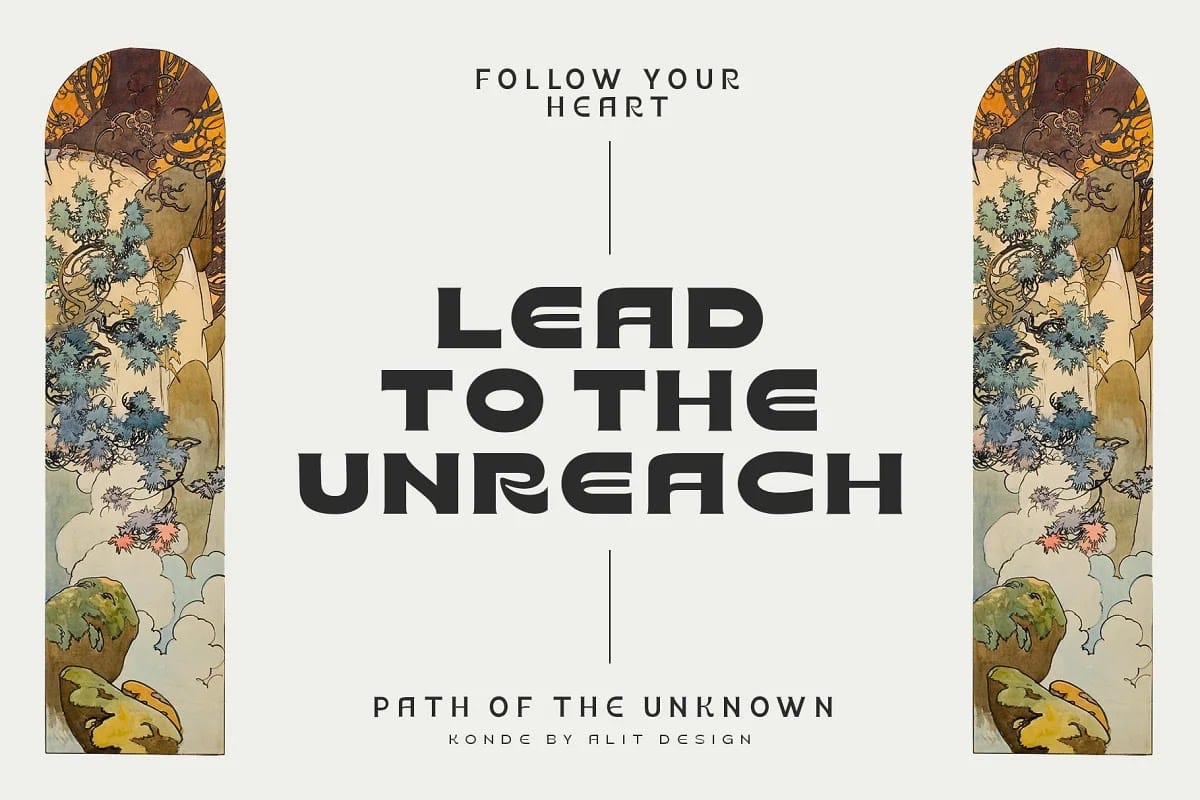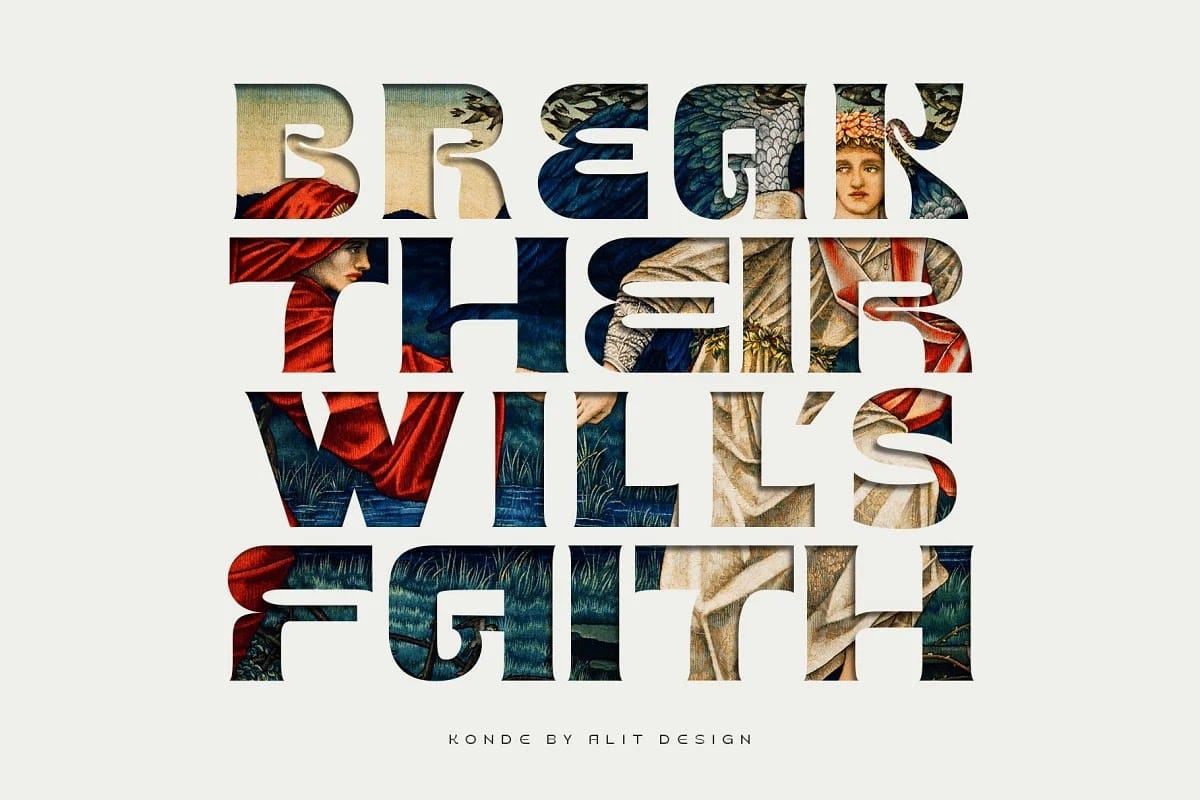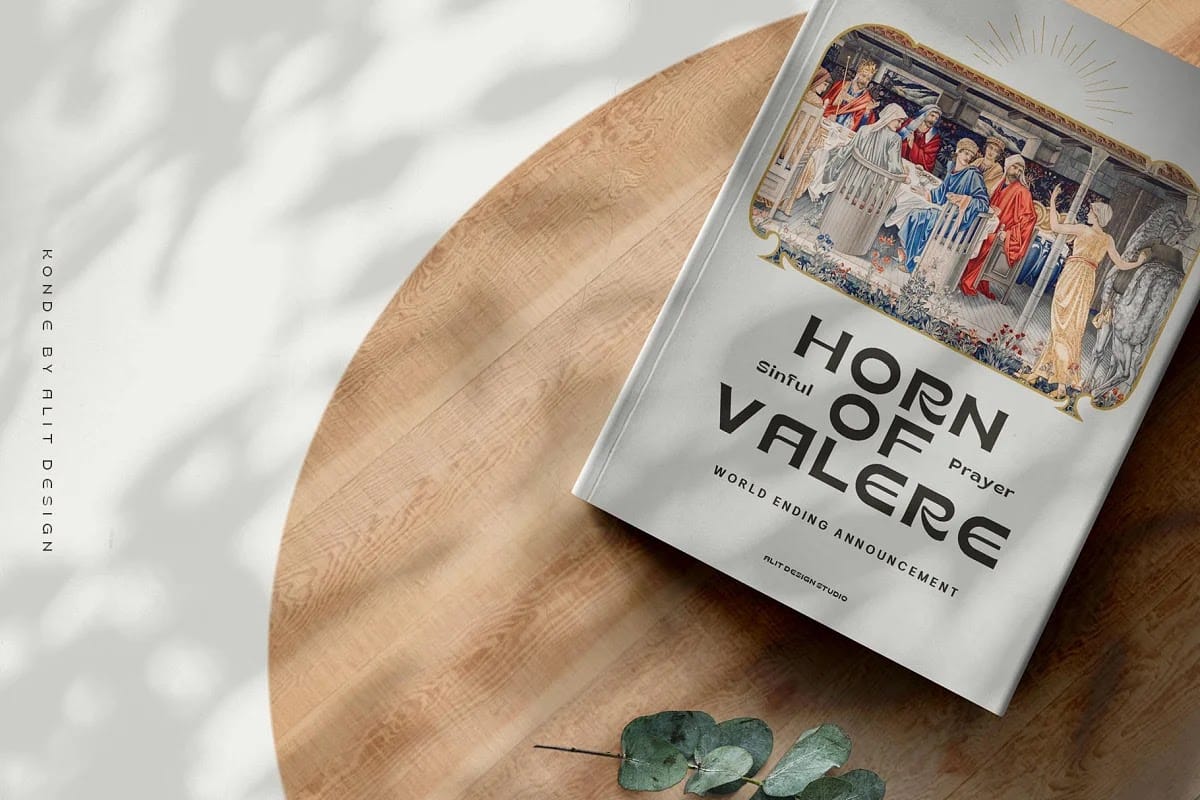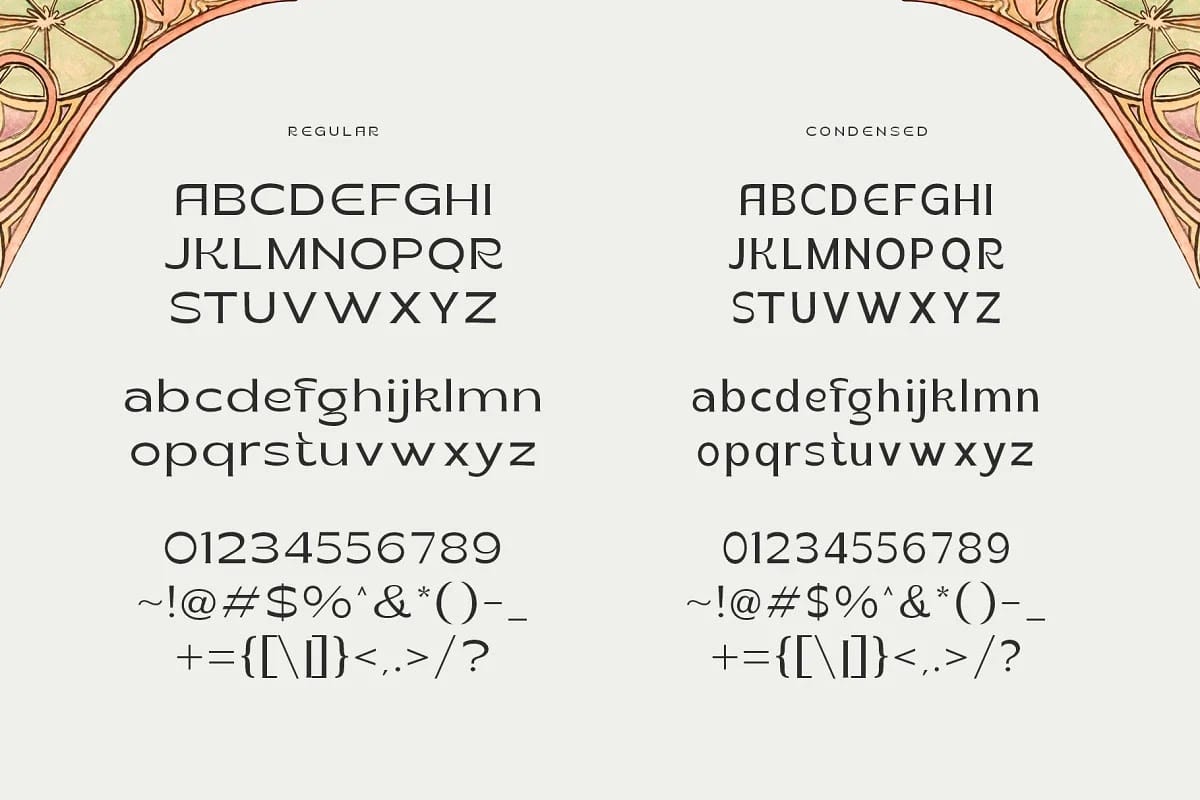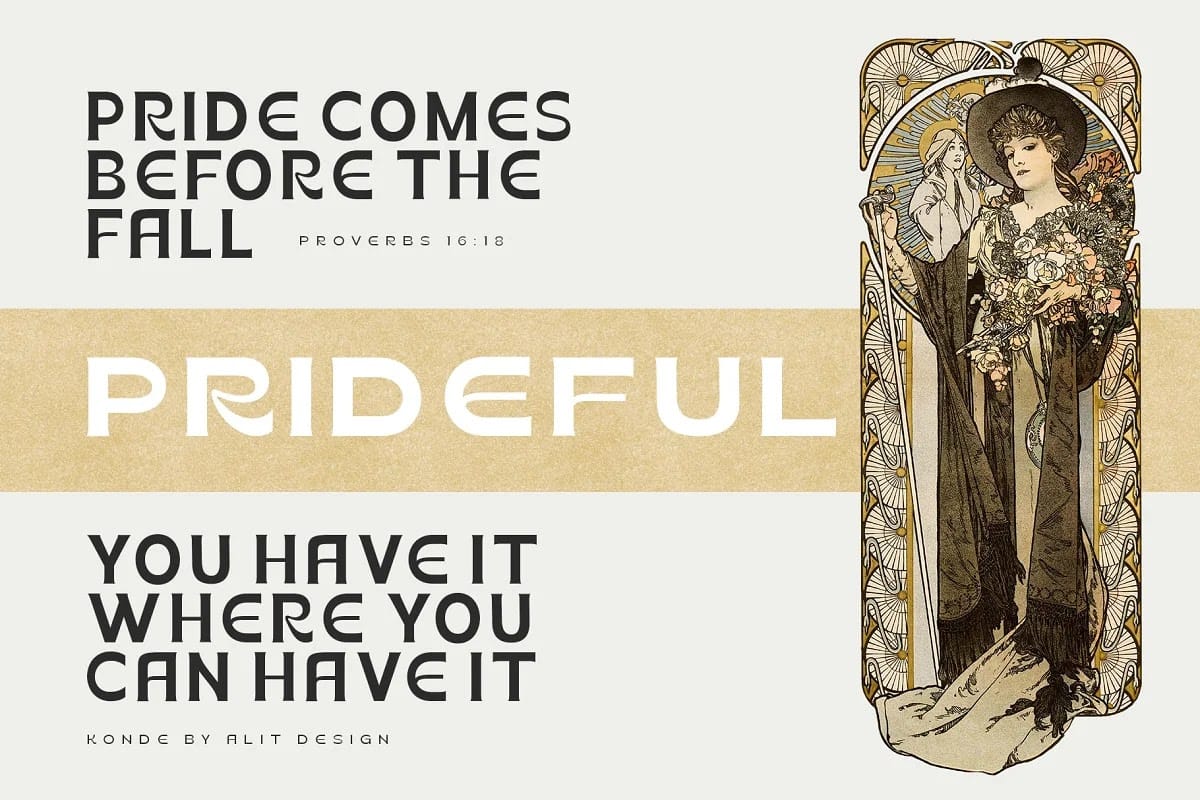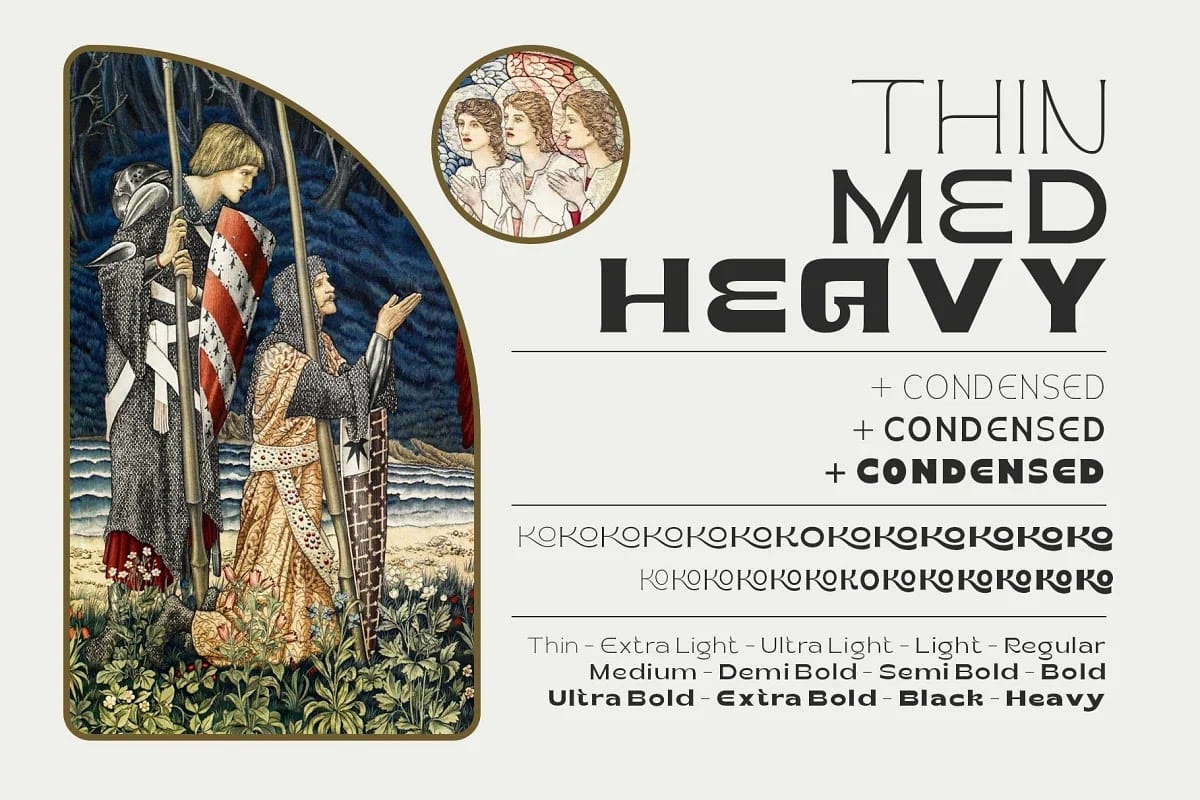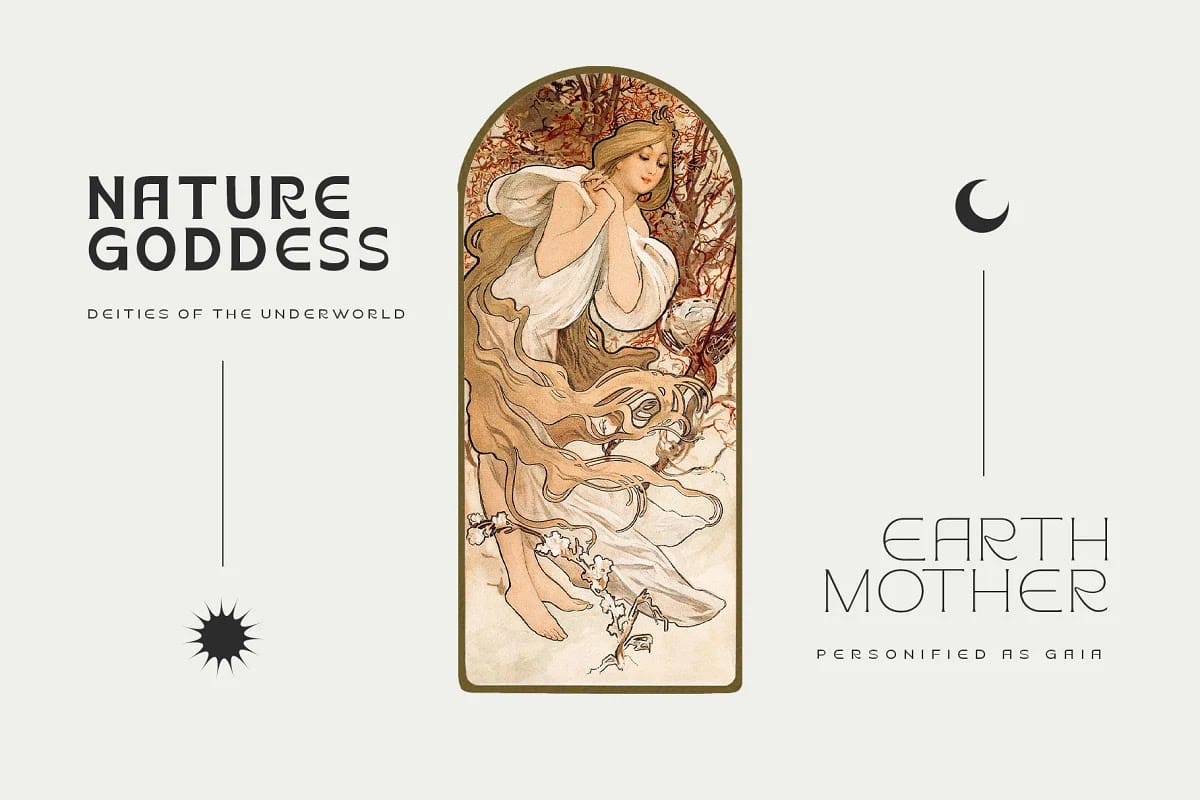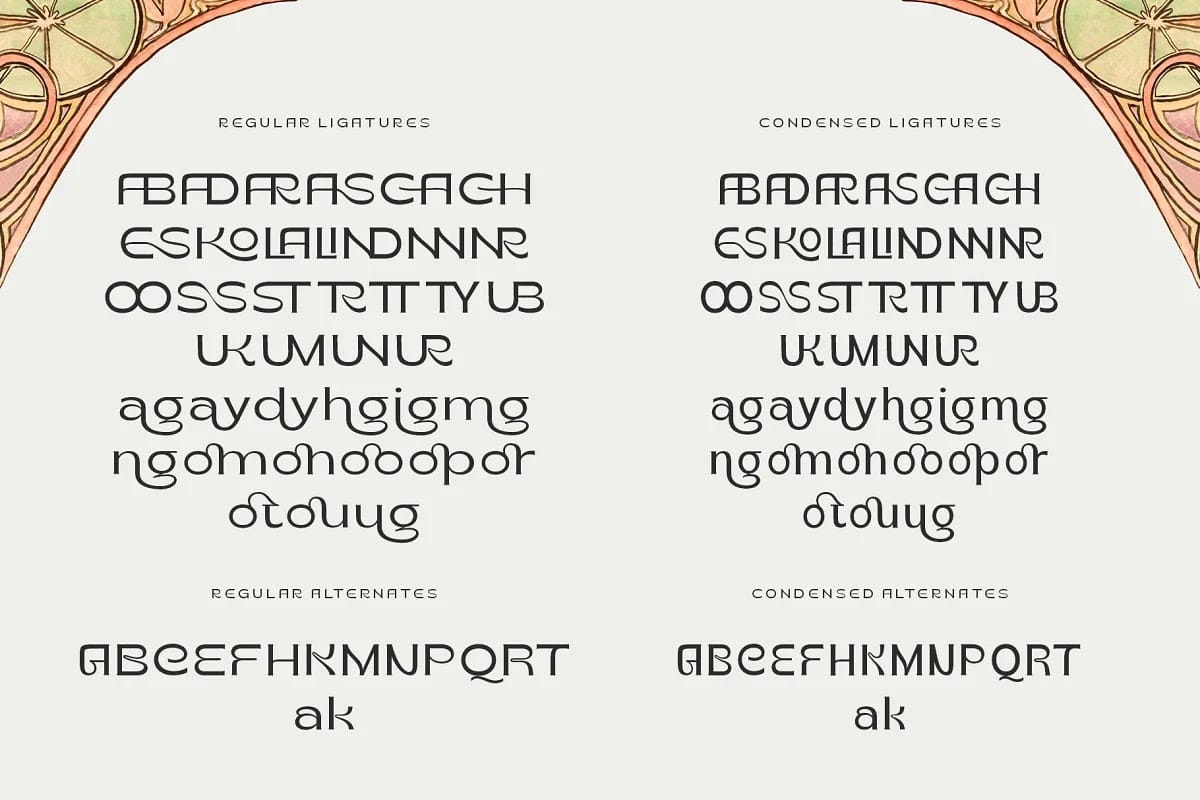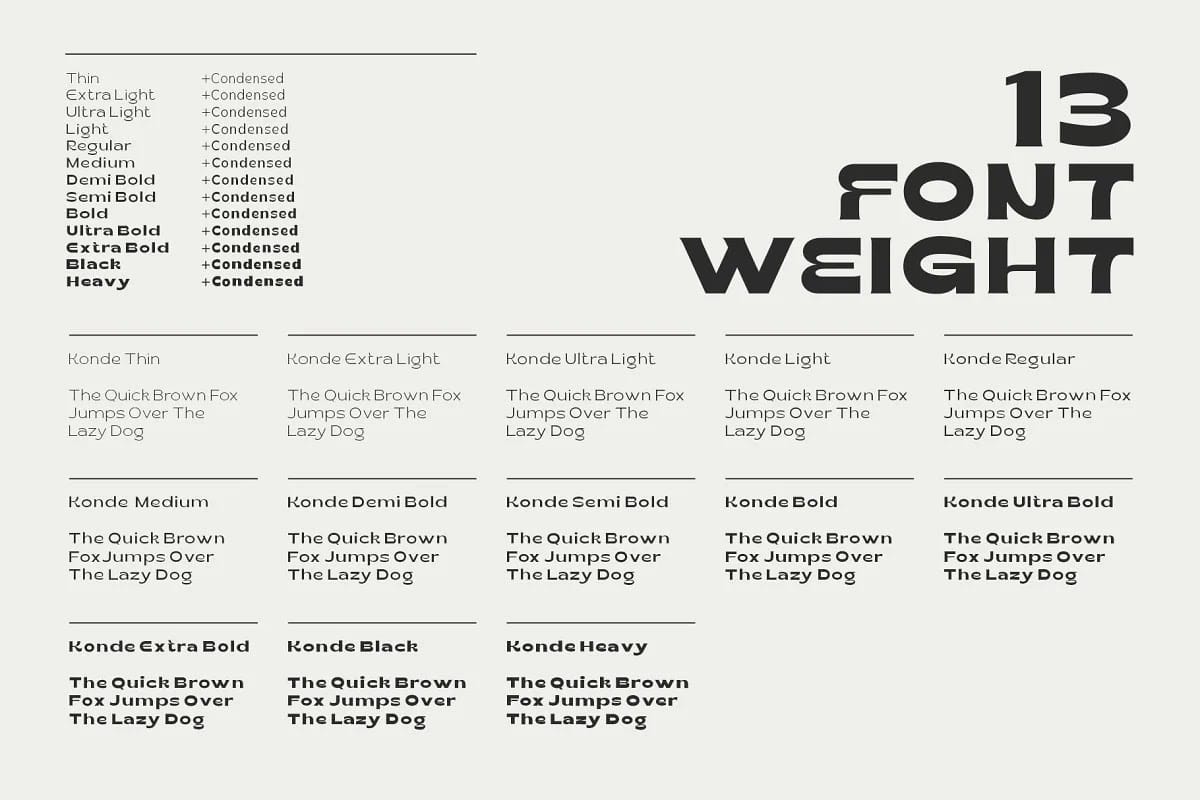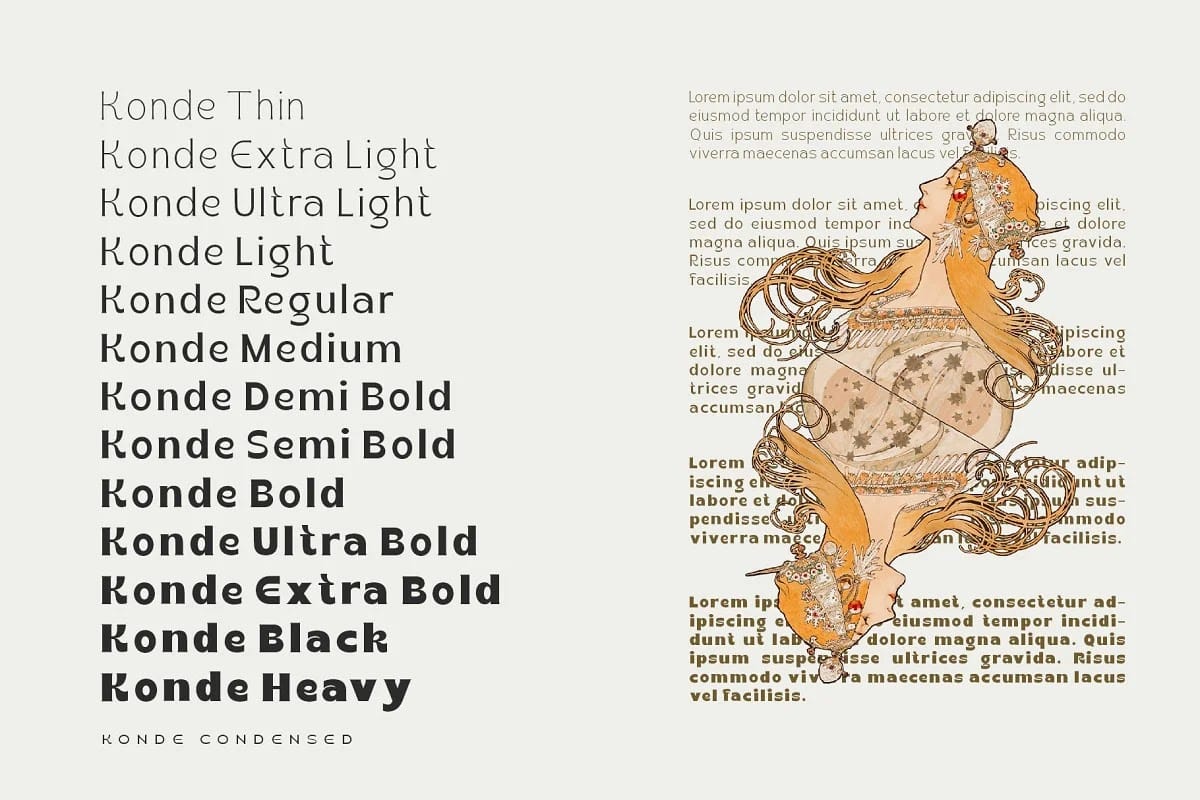
About Konde Font Family Konde Typeface font is designed in a retro style with unique and fresh strokes. The font comes in 26 styles from Thin to Heavy and Condensed so it’s great for headlines, book covers and classic designs, and it also looks great for body text.
Konde Sans Serif is very easy to apply to any design, especially nostalgic and classic typefaces, besides this font can be used easily on any software because it supported by Unicode.
The special feature of this font set contains 549 glyphs with many powerful alternative options. Plus, there’s a great font for the title and description text in a variety of sizes. You will surely like it.